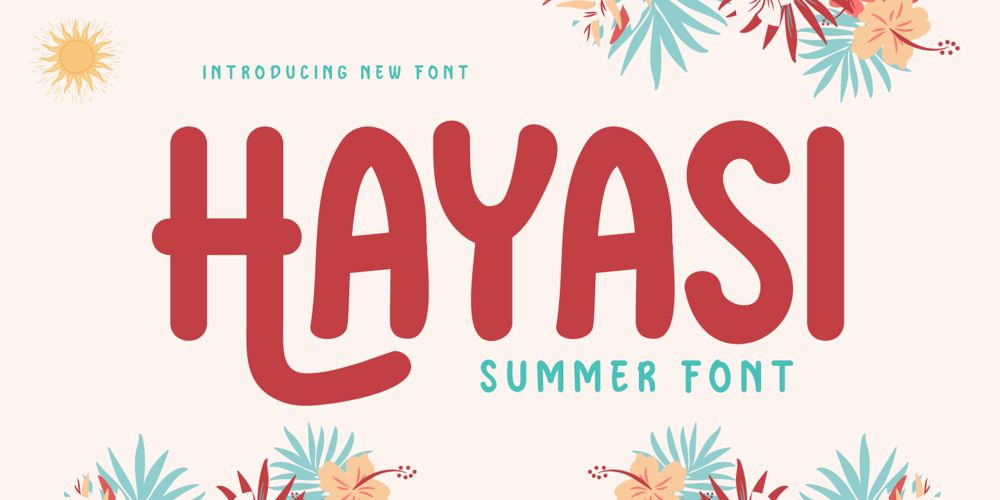
Hayasi Font Family was designed by Rozikan and published by Twinletter. Hayasi contains 1 styles and family package options. Introducing “HAYASI Font” – Embrace the Essence of Summer in Your Designs.Experience the vibrant spirit of summer with HAYASI Font. This font encapsulates the lively and carefree atmosphere of the season, making it the perfect choice for infusing a touch of summer into your creative projects.What’s Included : File font All glyphs Iso Latin 1 Alternate, Ligature Simple installations PUA Encoded Characters – Fully accessible without additional design software. Fonts include Multilingual support